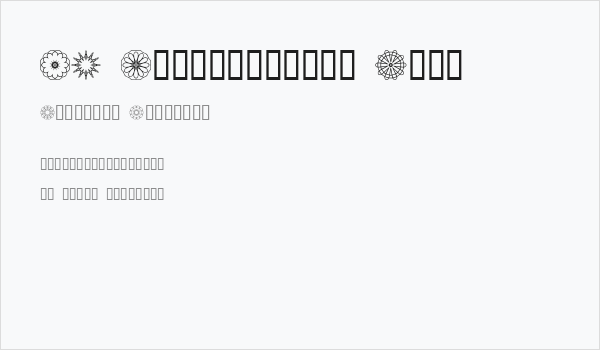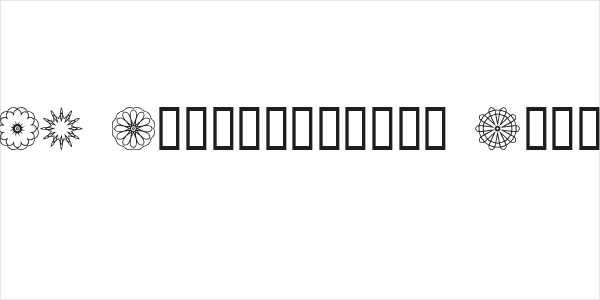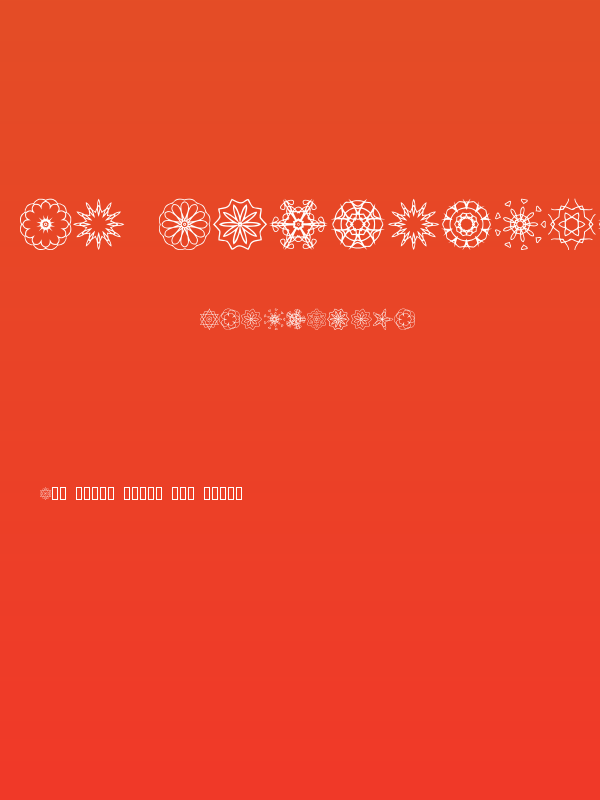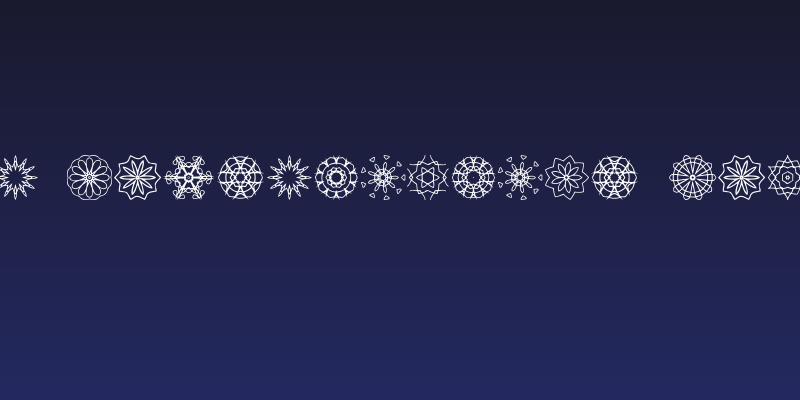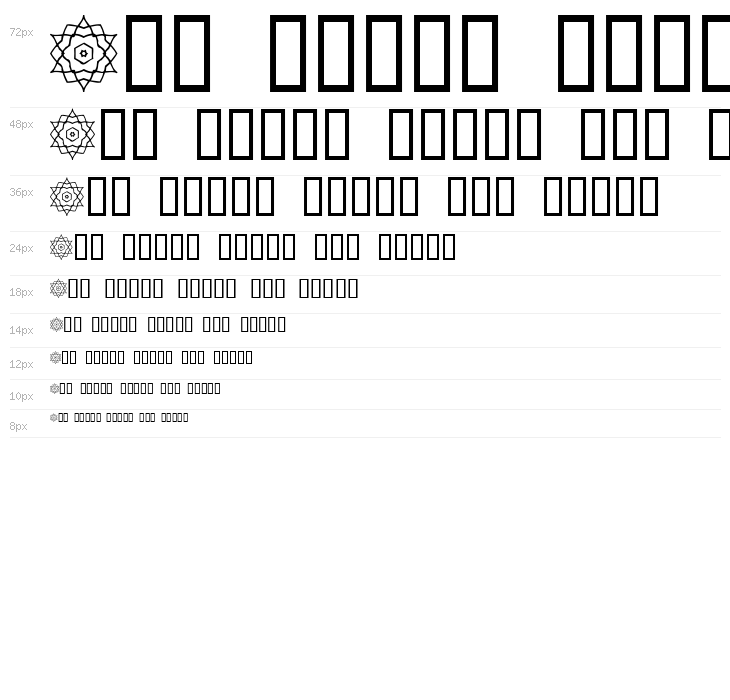
JI Kaleidoscope Bats Font
JI Kaleidoscope Bats Description
This is a decorative font featuring intricate kaleidoscope-inspired designs. Each character is represented by a unique geometric pattern, resembling the symmetrical and complex visuals seen through a kaleidoscope. The designs are detailed and artistic, making them suitable for creative and artistic projects. The font does not follow traditional alphanumeric representation, instead offering a series of ornamental symbols. These symbols can be used to add a decorative touch to various design projects, providing a unique and artistic flair.
| Use Case | Logos, Decorative elements, Artistic designs |
| Proposed Projects | Ideal for creative projects such as invitations, posters, and artistic branding where a decorative and unique touch is desired. |